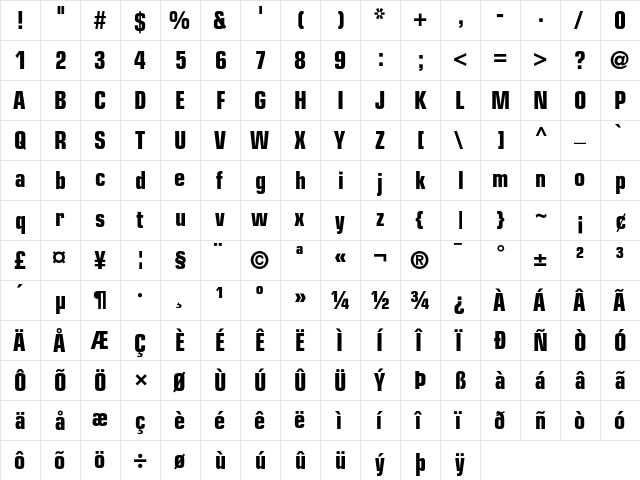
Eurostile Bold Condensed
Design Context for Eurostile Typeface
Eurostile takes a measured approach to typography — its balanced proportions and neutral character make it a reliable workhorse for both digital and print work. Its bold stroke weight gives it real presence on the page. The condensed width makes it efficient for tight spaces without sacrificing legibility.